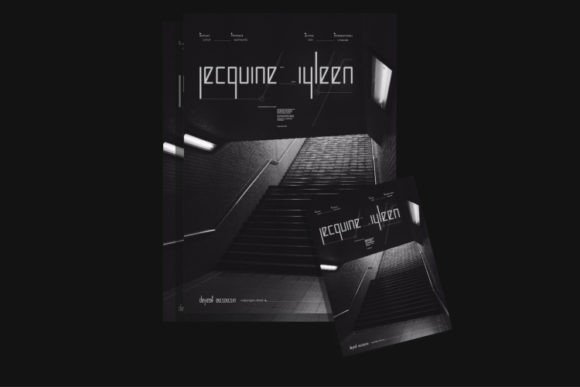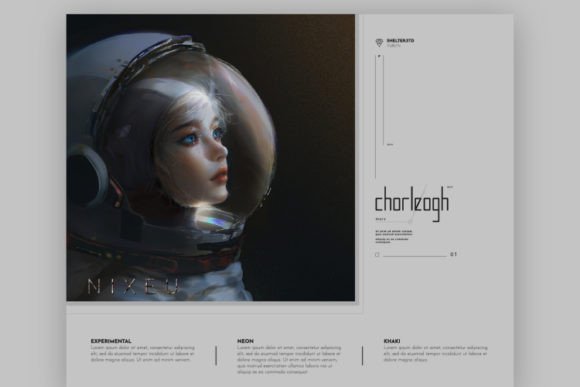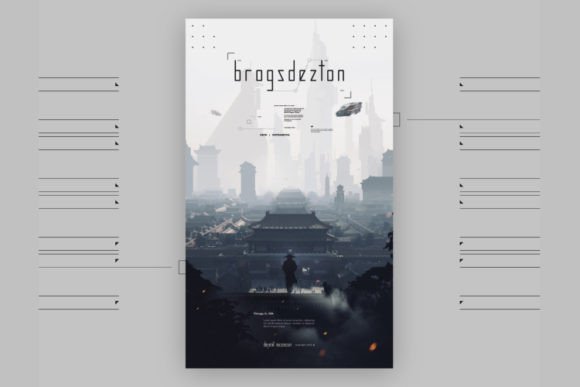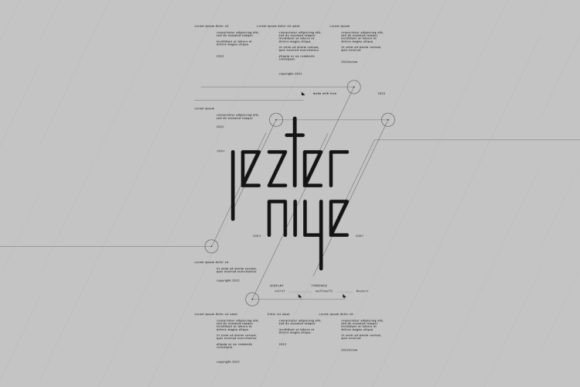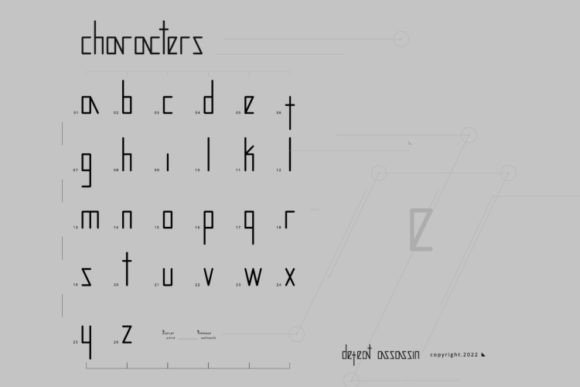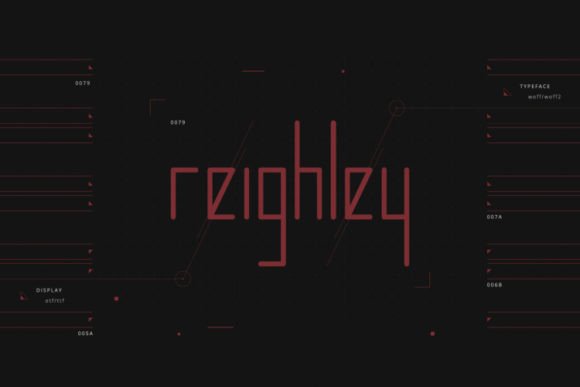
Introduction to Defeat Assassin Font
Defeat Assassin is an innovative and futuristic display font.
Key Features of Defeat Assassin Font
Why Choose Defeat Assassin Font?
Defeat Assassin Font offers exceptional quality and versatility, making it a valuable addition to your design toolkit. Whether you’re creating for personal projects or commercial use, Defeat Assassin Font delivers professional results.